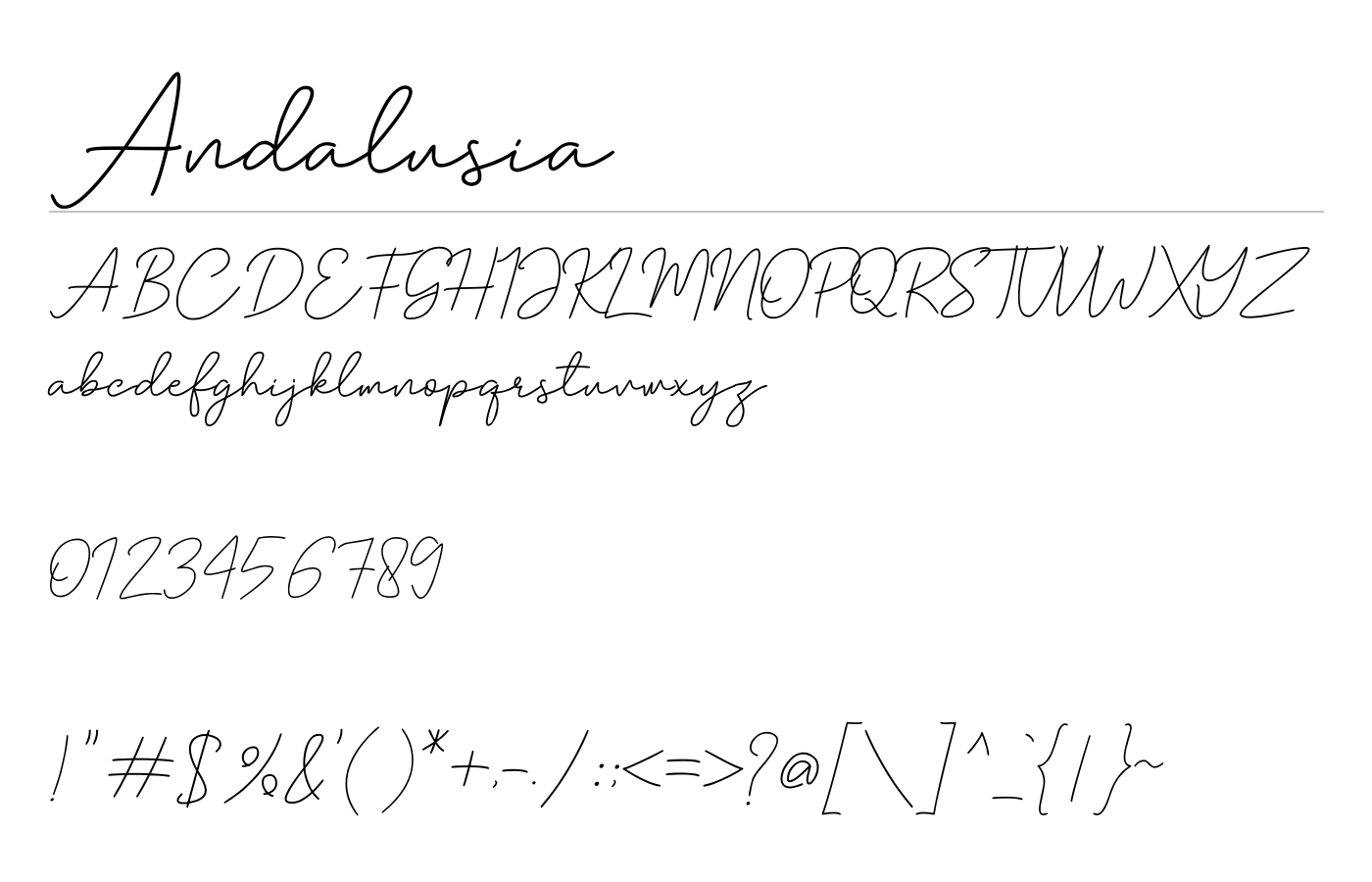
Andalusia is a delicate and elegant script font with a handwritten, cursive style that features thin, flowing strokes and a slightly tall x-height. Its light weight and airy letterforms give it a graceful, personal touch, making it perfect for invitations, branding, and feminine designs where a soft, sophisticated look is desired. This font works well for logos, headlines, and decorative uses where a refined, stylish atmosphere is needed.
Andalusia Font
About Andalusia Font
| Font family | Andalusia Font |